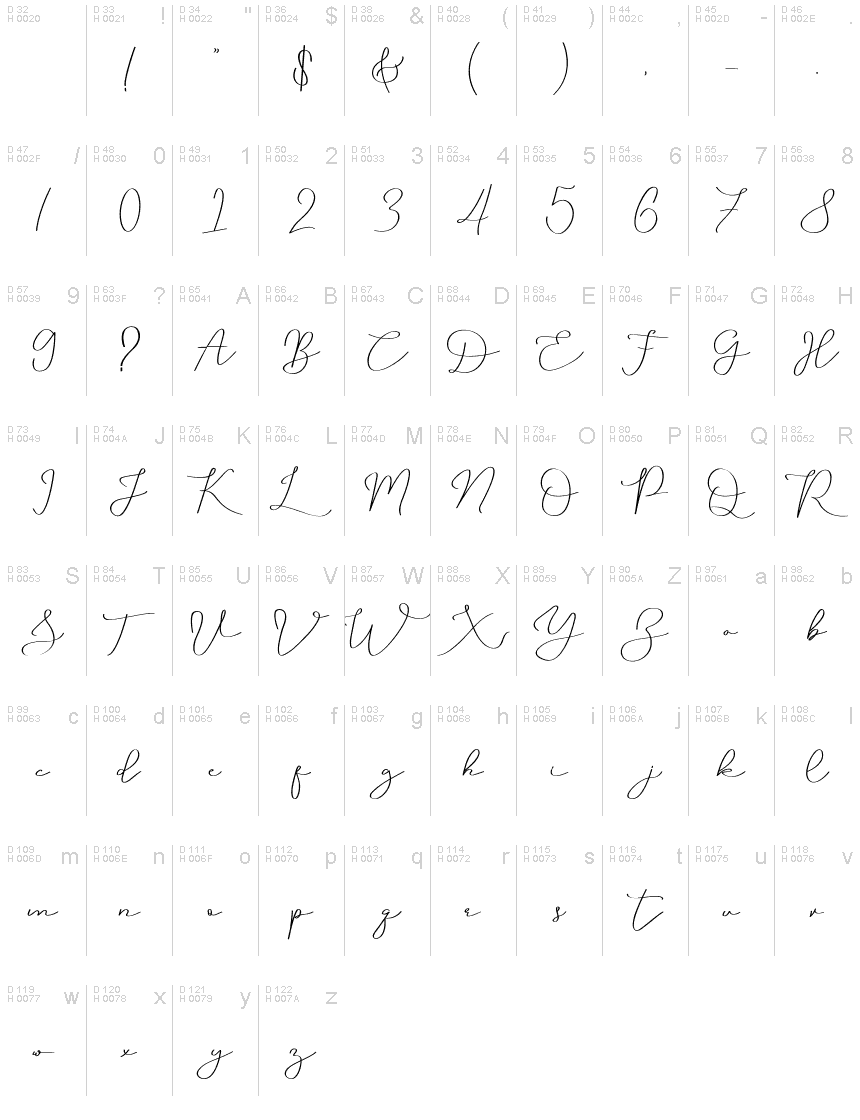
Julaika
Julaika, a captivating creation by Klakon Studio, is a remarkable handwritten font that exudes elegance and finesse. With its extra-light weight, Julaika adds a delicate touch to any project, making it perfect for wedding invitations, greeting cards, and feminine branding. This font's graceful strokes and natural flow bring a sense of authenticity to digital designs, social media graphics, and blog headers. Whether you're aiming for ethereal or whimsical aesthetics, Julaika will effortlessly elevate your project with its enchanting charm. Explore the endless possibilities this exquisite typeface offers and let your creativity soar!